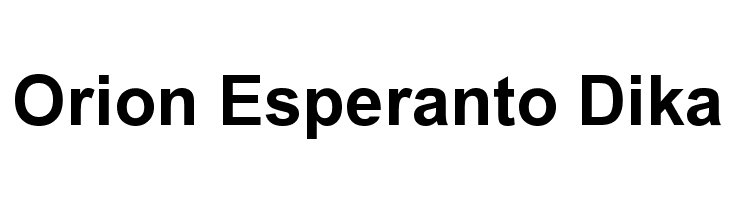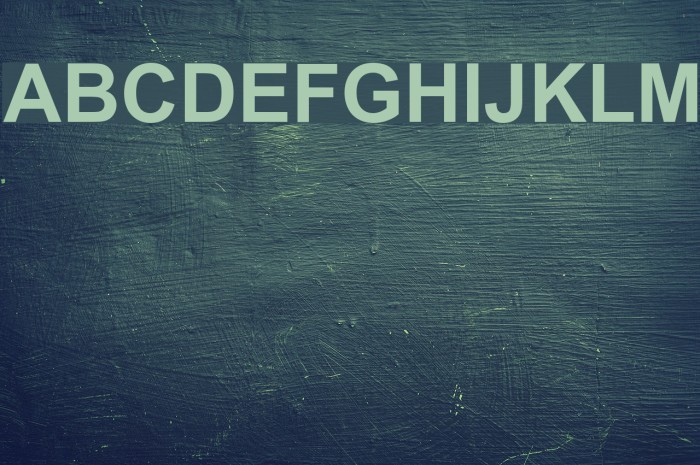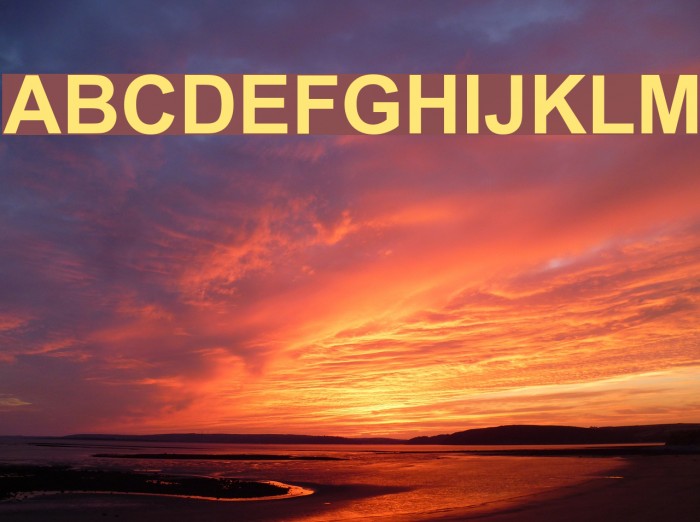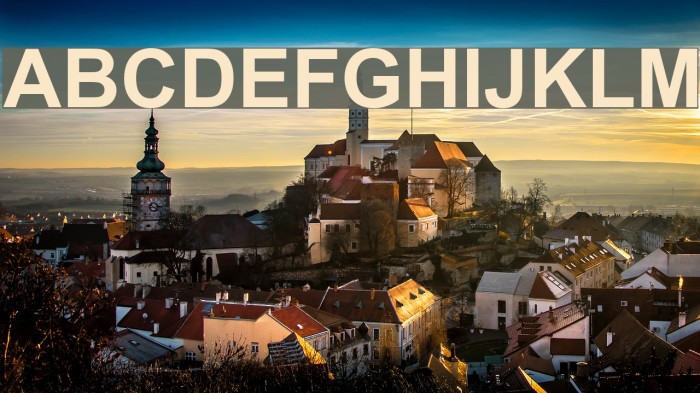
Orion Esperanto Dika Font
Orion Esperanto Dika Description
This font exhibits a bold and modern sans-serif style, characterized by clean lines and a uniform stroke width. The uppercase and lowercase letters maintain a consistent height, contributing to a balanced and cohesive appearance. The numerals are clear and easily distinguishable, making them suitable for a variety of applications. Special characters are well-defined, enhancing the font's versatility. The overall design is straightforward yet impactful, making it ideal for projects that require a strong visual presence.
A bold, modern sans-serif font with clean lines and uniform stroke width from Uncategorized fonts.
- Proposed Projects: Ideal for branding, advertising, headlines, and digital media where a strong, modern look is desired.
- Use Case: Headlines, Logos, Advertising